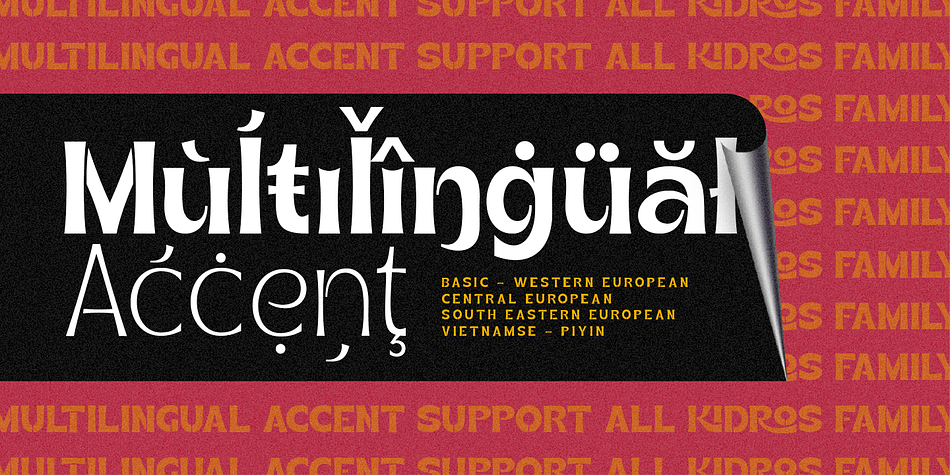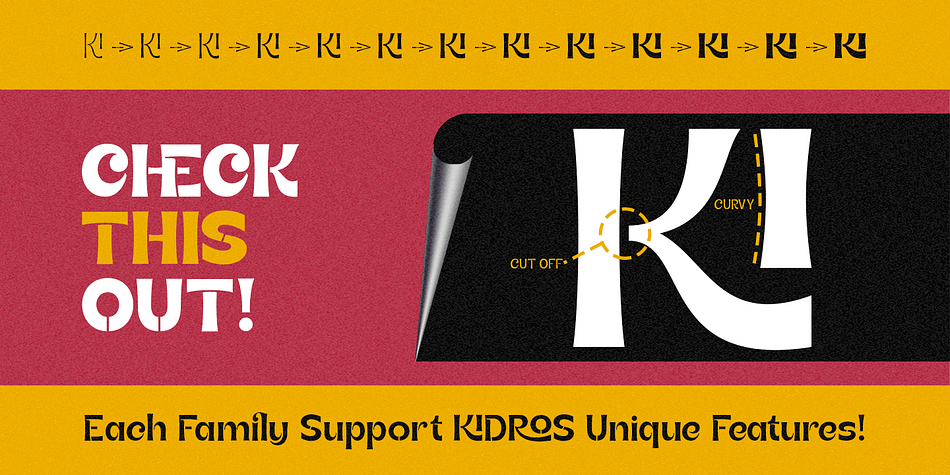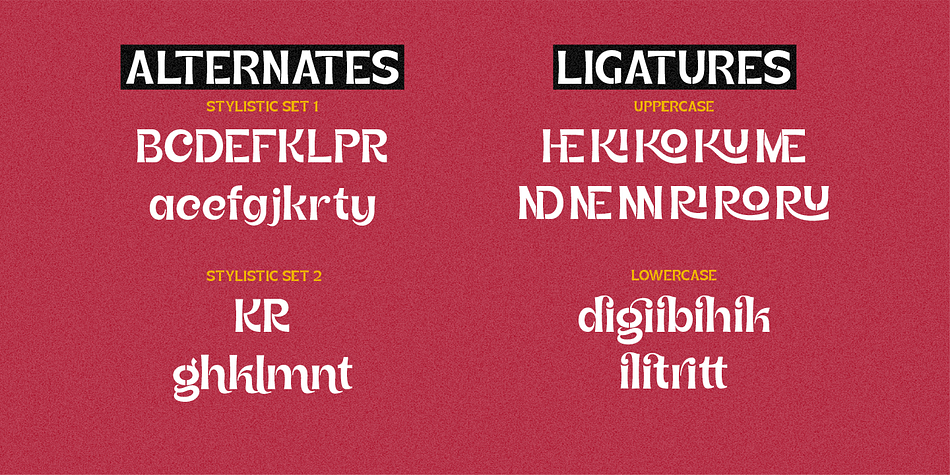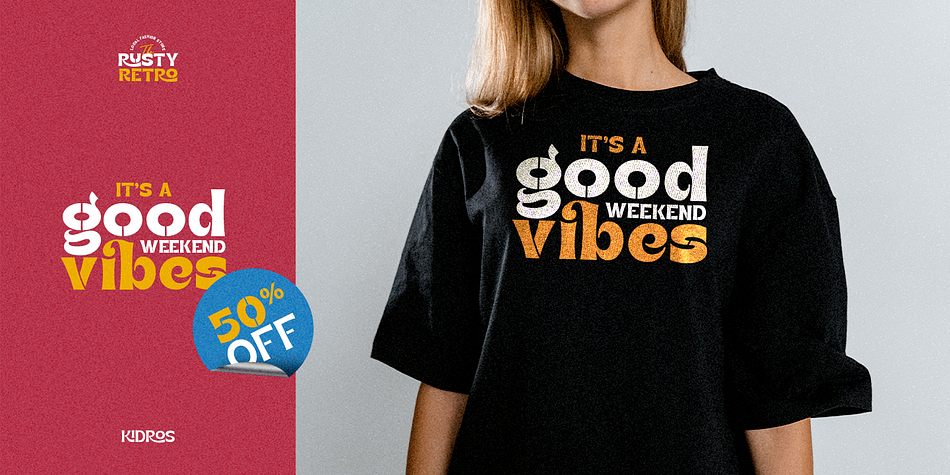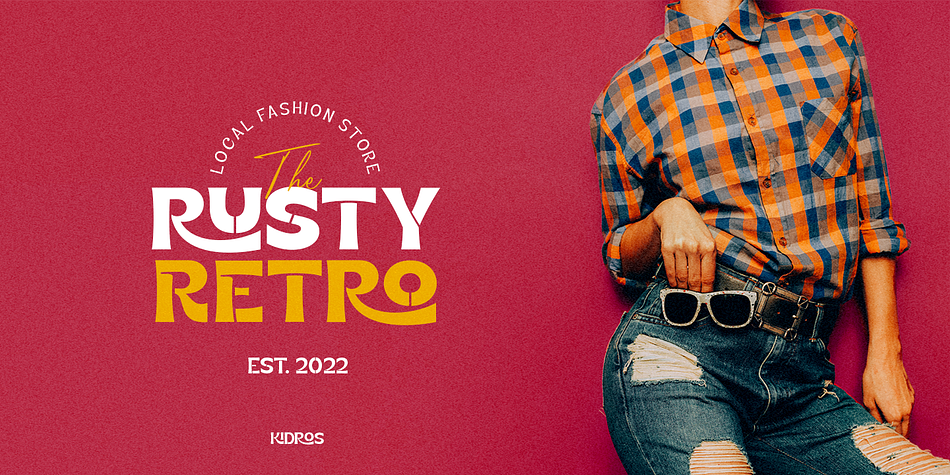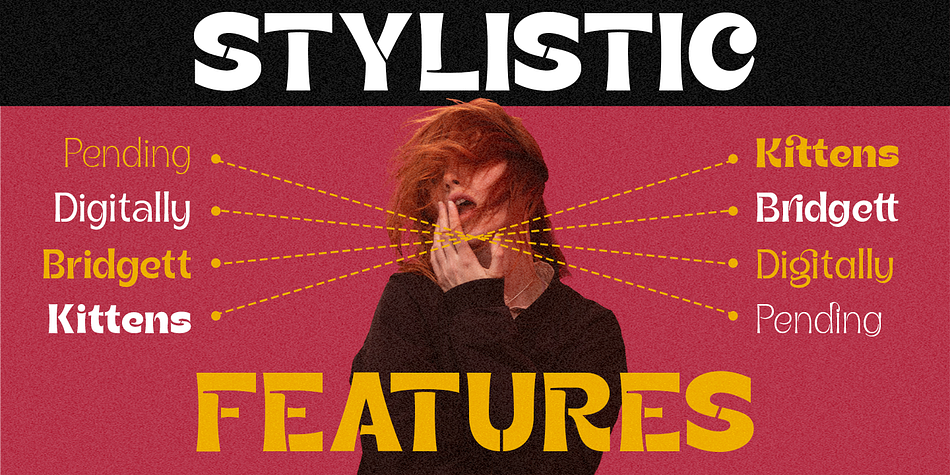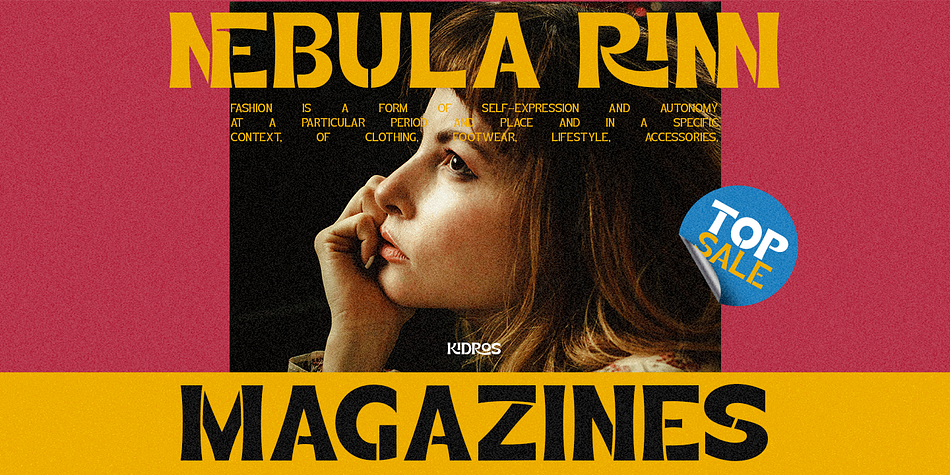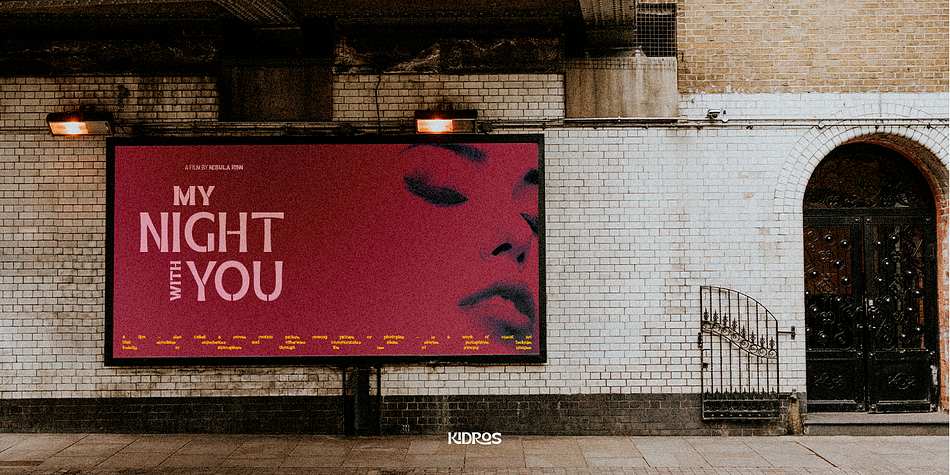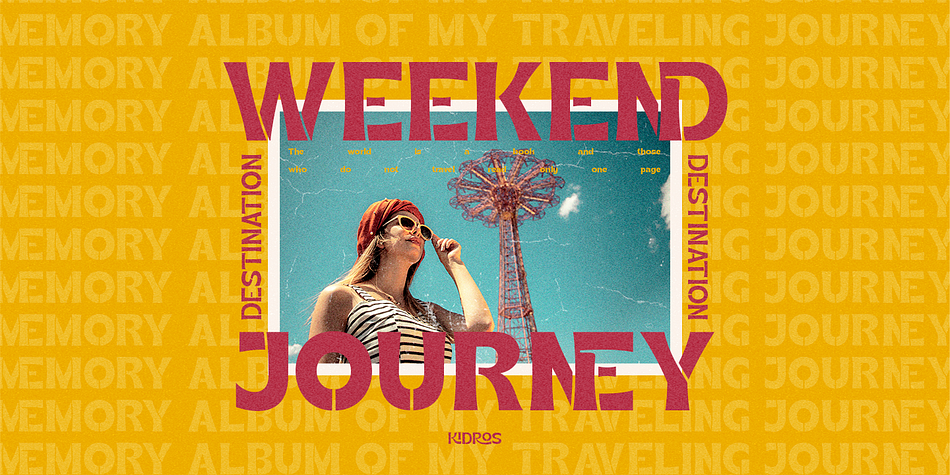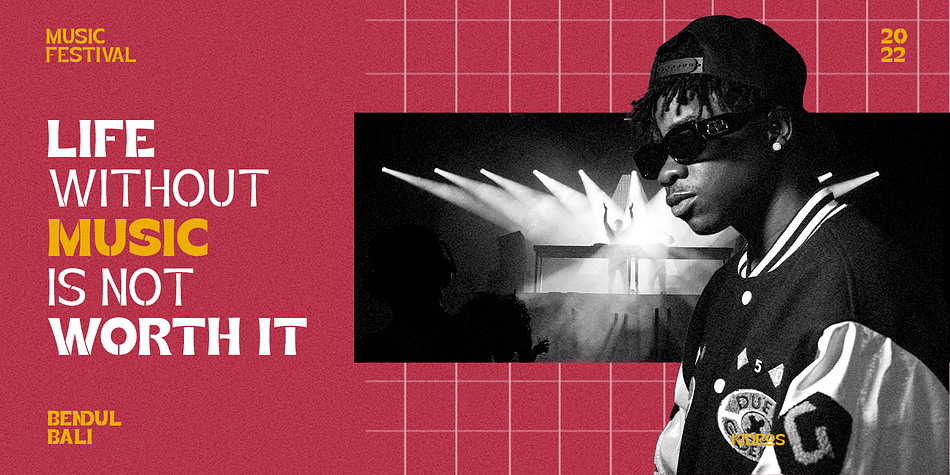
Designed by Alit Suarnegara, Kidros is a display sans and stencil font family. This typeface has thirteen styles and was published by Alit Design.
Introducing KIDROS Typeface
The KIDROS font is designed with a sans serif font concept that has a retro display stencil style. Irregular dynamic shapes but impressively regular and unique make the font “KIDROS” different and steal attention.
Sans serif typefaces such as “KIDROS” are very easy to apply to any design, especially those with an retro, vintage and strong, besides that this font is very easy to use both in design and non-design programs because everything changes and glyphs are supported by Unicode (PUA).
The “KIDROS"contains 540 glyphs with many unique and interesting alternative options. Plus, there’s a cool sans serif font family for header and description text from thin to heavy to thin. In the poster preview all the letters are in the KIDROS typeface.